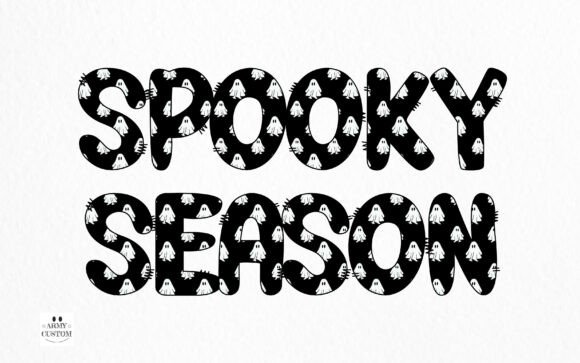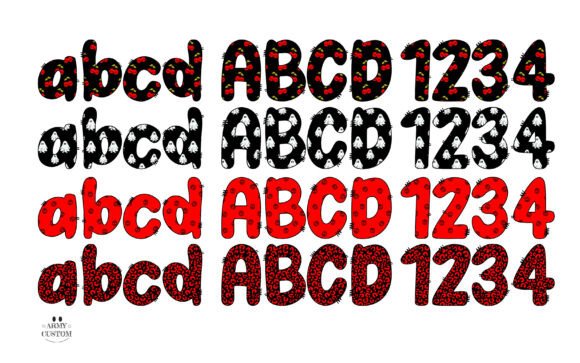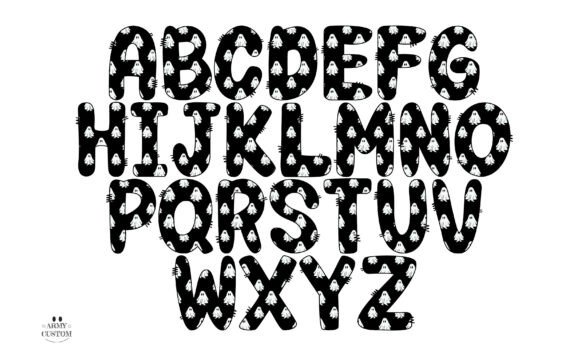
Introduction to Halloweenblack Ghost Font
As you sit at your desk, surrounded by the familiar hum of your design tools, you’re struck by a sudden urge to create something spooky, yet whimsical. The air is filled with the promise of Halloween, and your mind is buzzing with ideas for a hauntingly beautiful project. This is where the Halloweenblack Ghost Font comes in – a game-changing design resource that will elevate your creative endeavors and transport your audience to a realm of eerie elegance.
This meticulously crafted color font is more than just a typeface; it’s a visual celebration of Halloween’s playful, spooky essence. With its high-quality glyphs and transparent background, it’s the perfect addition to any design project, whether you’re creating a party invitation, social media graphic, or digital decor. The Halloweenblack Ghost Font is a valuable asset for designers seeking to infuse their work with seasonal energy and charm.
Key Features of Halloweenblack Ghost Font
- High-quality design with a transparent background, perfect for creative projects.
- Unique, spooky design with a ghostly theme, perfect for adding a touch of eeriness to your designs.
- Includes 1 font style with a single weight, ideal for use in titles, headings, and other text elements.
Honest Review: Halloweenblack Ghost Font
I recently had the chance to work with the Halloweenblack Ghost Font, and I must say it’s a unique addition to any creative project. The font’s spooky aesthetic is perfect for Halloween-themed designs, but its versatility makes it a great design resource for other projects as well.
What works well is the font’s transparent background, allowing it to seamlessly integrate with any image or design element. The high quality of the font makes it perfect for professional projects, and the free download option is a huge bonus.
- ✨ Unique and spooky aesthetic, perfect for Halloween-themed designs
- ✨ High quality font, suitable for professional projects
- ✨ Transparent background for easy integration with design elements
However, there are some limitations to consider. The font is only available in a single weight, which may limit its use in certain design contexts. Additionally, the font’s spooky aesthetic may not be to everyone’s taste.
Overall, I’m impressed with the Halloweenblack Ghost Font. While it may not be the most versatile font, its unique aesthetic and high quality make it a great addition to any design project. Just be aware of its limitations before using it.
To get the most out of the Halloweenblack Ghost Font, try using it on a transparent background to create a spooky and eerie effect. You can also experiment with different font sizes and colors to create a unique and creative project.
The Halloweenblack Ghost Font is a versatile design resource that can be used in a variety of creative projects, including Halloween-themed designs, spooky posters, and haunted house invitations. It’s also a great resource for designers who want to add a touch of eeriness to their designs.